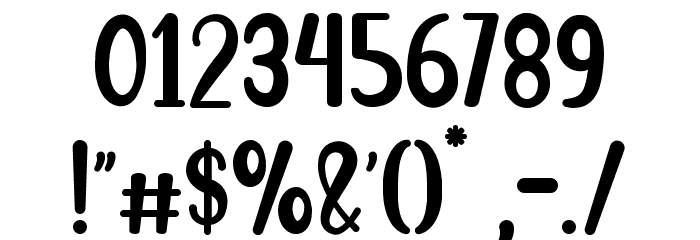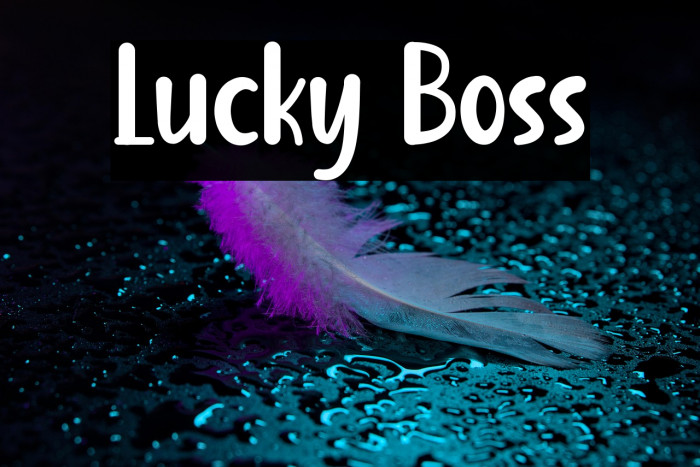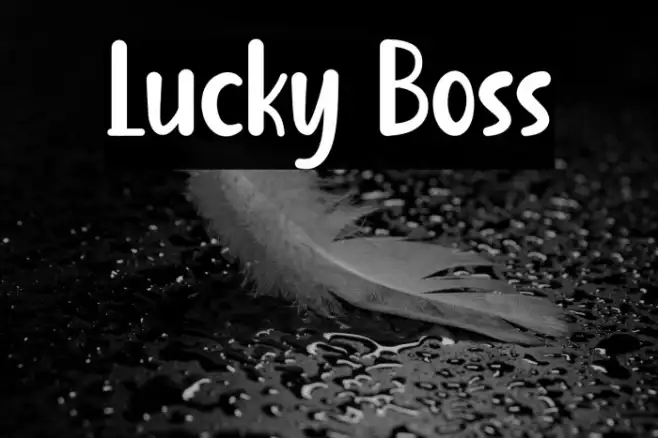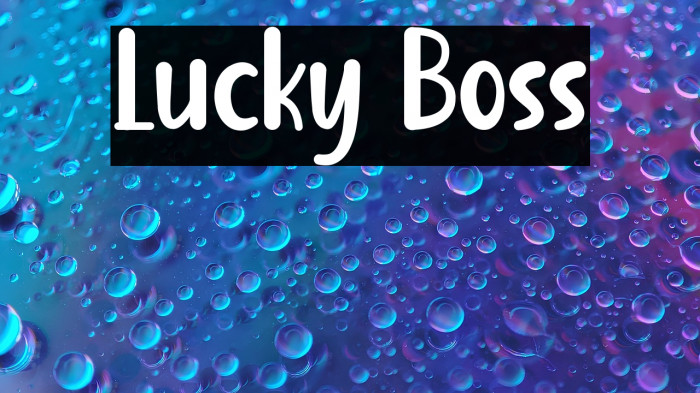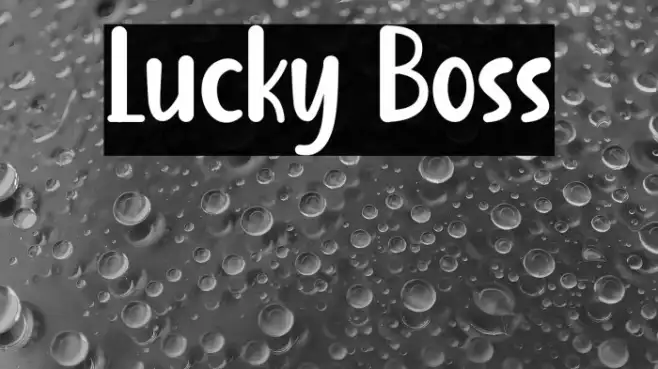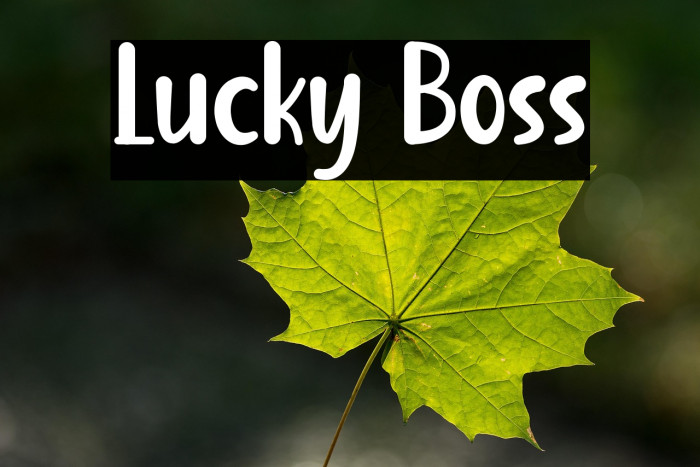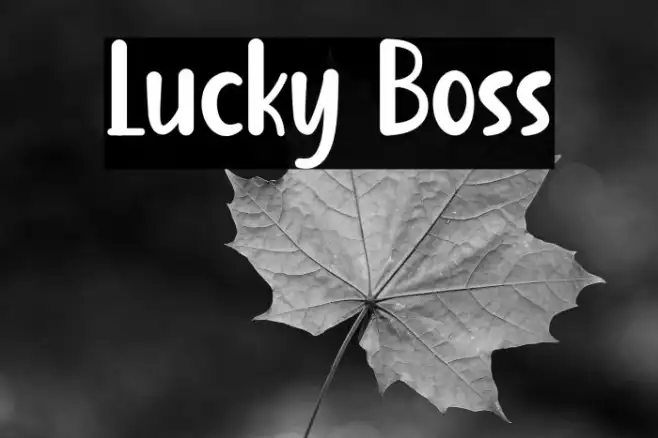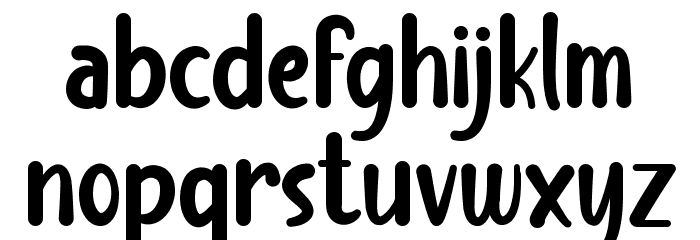
Lucky Boss Font
Lucky Boss Description
This playful and bold font features rounded edges and a friendly, approachable style. The characters are slightly condensed, giving it a compact appearance while maintaining readability. The uppercase letters are tall and uniform, while the lowercase letters have a whimsical touch with varying heights and curves. The numerals are consistent with the overall style, ensuring clarity and balance. Special characters are well-integrated, maintaining the font's cohesive look. This font is perfect for projects that require a fun and engaging aesthetic, such as children's books, playful branding, or casual invitations.
| Proposed Projects | Ideal for children's books, playful branding, casual invitations, and fun posters. |